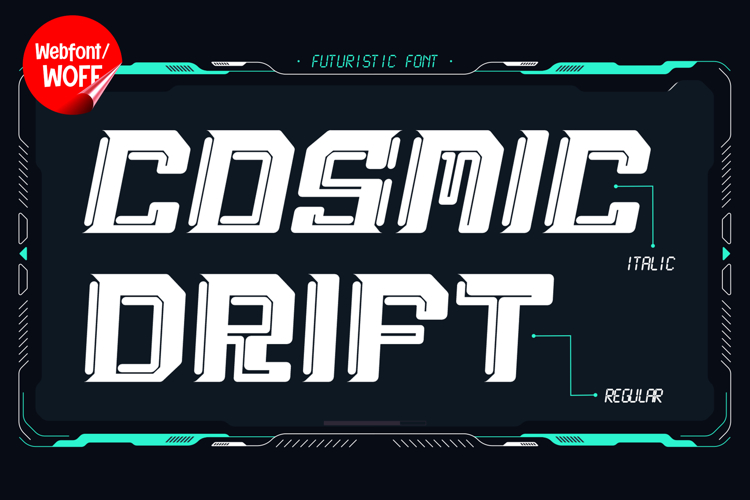
Cosmic Drift | Italic Futuristic Webfont for Modern Websites
Cosmic Drift is an italic futuristic webfont designed to bring speed, motion, and a forward-looking aesthetic into modern website design. With its slanted structure and sleek letterforms, this font conveys a sense of movement and innovation, making it ideal for projects that focus on technology, digital experiences, and contemporary branding. Its clean yet dynamic appearance helps create a strong visual identity that feels modern and progressive.
Cosmic Drift features a complete set of uppercase characters designed with an italic and futuristic style. The angled letterforms create a sense of motion, making it perfect for headlines, banners, hero sections, and featured content that need to stand out. The geometric and streamlined design enhances readability while maintaining a distinctive and modern look.
In addition to letters, the font includes numbers and punctuation, allowing flexible usage across various parts of a website. It works effectively for product displays, navigation menus, promotional content, and interface elements. Each character is crafted to maintain consistency, ensuring a cohesive visual identity throughout the design.
With multilingual support, Cosmic Drift includes a wide range of accented characters, making it suitable for international websites and global audiences. This allows content to be presented clearly across different languages while preserving the futuristic style of the font.
The italic futuristic design of Cosmic Drift makes it especially suitable for technology websites, startup platforms, gaming interfaces, automotive brands, and digital portfolios. Its sense of speed and motion adds energy to layouts, helping websites feel more dynamic and engaging. It is also a strong choice for branding that emphasizes innovation and modernity.
Despite its stylized appearance, Cosmic Drift is designed with readability in mind. The spacing and proportions are carefully balanced to ensure clarity, particularly in display sizes. This makes it effective for impactful headings and short text elements where both style and usability are important.
Cosmic Drift is a webfont that combines futuristic design with modern digital performance. Its italic structure, clean geometry, and dynamic flow create a distinctive typographic style that enhances website design. For projects that require a sleek, innovative, and forward-thinking look, Cosmic Drift offers a powerful and visually engaging solution.